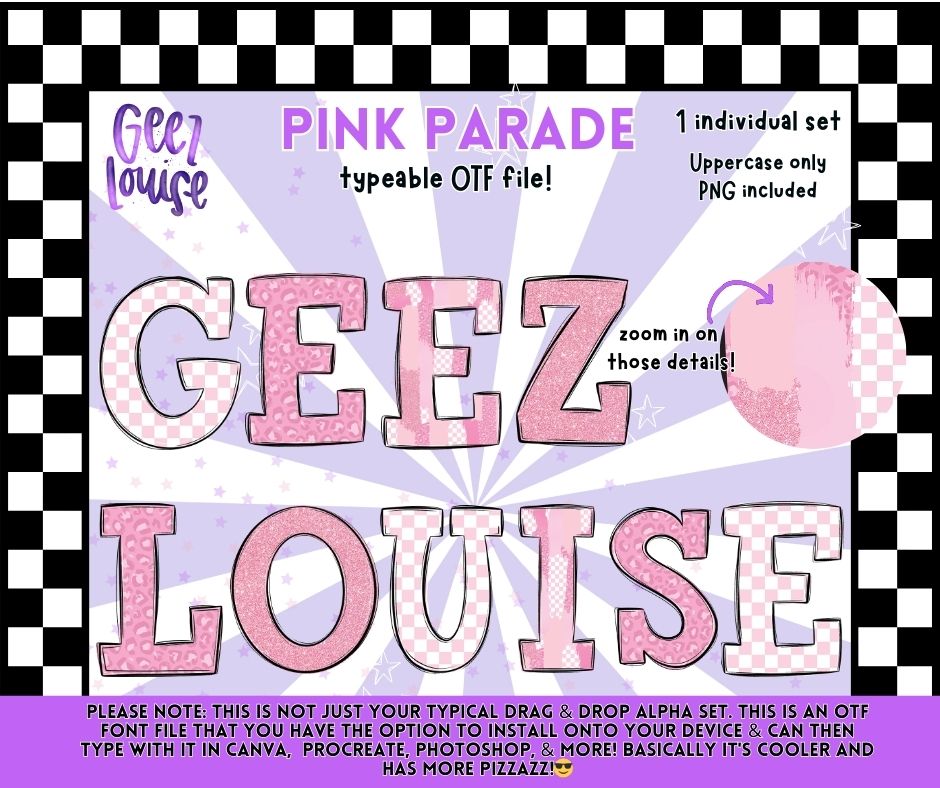
Pink Parade Alpha is a stand-alone uppercase digital font asset designed for creators who want both style and function in their workflow.
The letterforms feature hand-lined structure with layered texture elements (checkers, leopard, glitter accents, and stars), crafted to hold clean detail when applied to the products you make using your own production process.
• Want bold, nostalgic, alternative typography that prints sharp
• Need a font that can be typed with or used as an alphabet graphic asset
One alpha. Infinite creative potential.